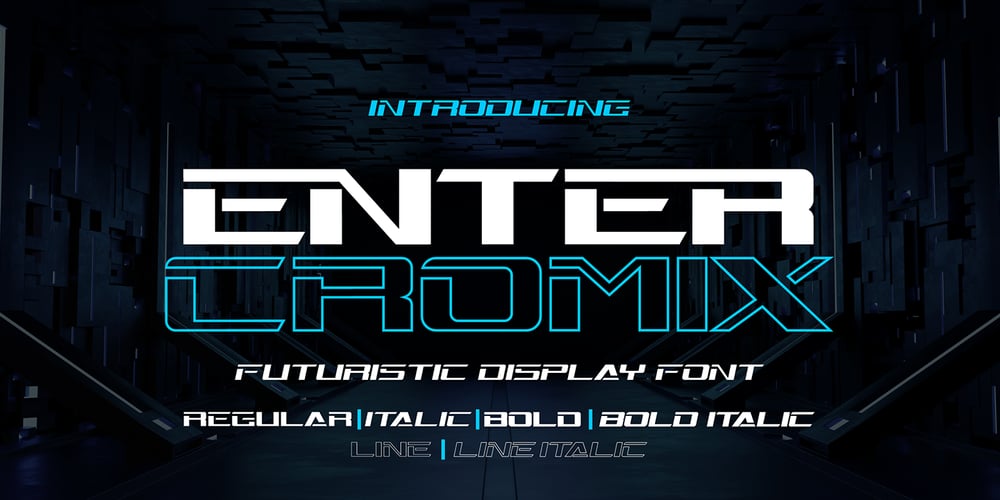
Enter Cromix Font Family was designed by Sipanji and published by Sipanji21. Enter Cromix contains 6 styles and family package options. “Enter Cromix” is described as a futuristic display font that comes with multiple styles, including bold, italic, and outline. Fonts with a futuristic design often feature sleek and modern letterforms that convey a sense of innovation and cutting-edge aesthetics.The different styles—bold, italic, and outline—provide versatility in creating various typographic effects. The bold style emphasizes a strong and impactful appearance, the italic style adds a dynamic slant, and the outline style creates a distinct and open character structure.”Enter Cromix” is suitable for a range of design projects where a futuristic and dynamic typographic style is desired. Its variety of styles allows for creative exploration in conveying different visual elements within the text.